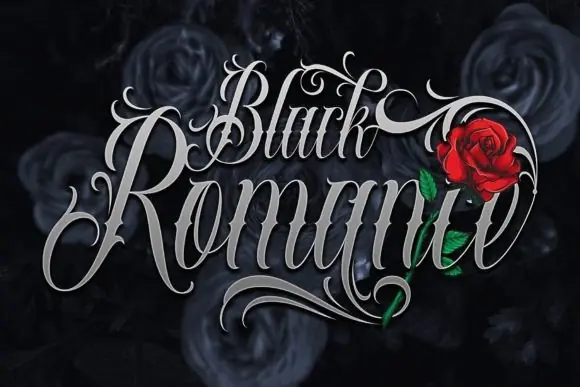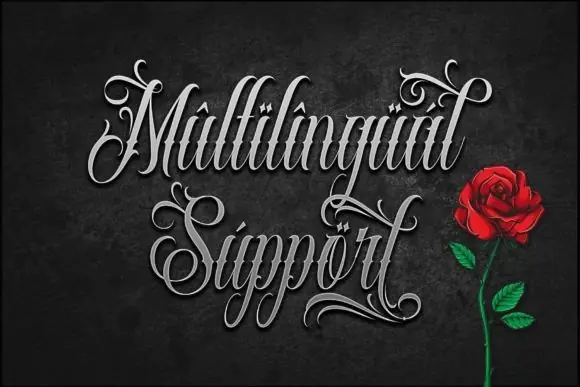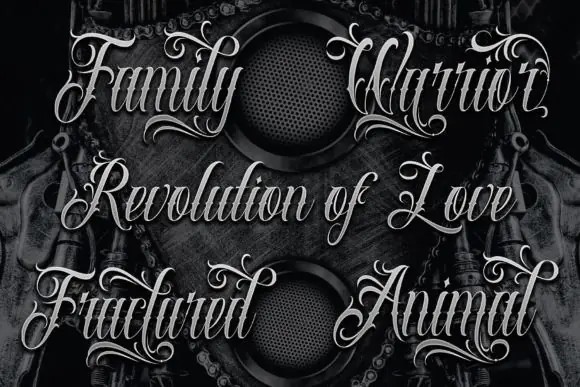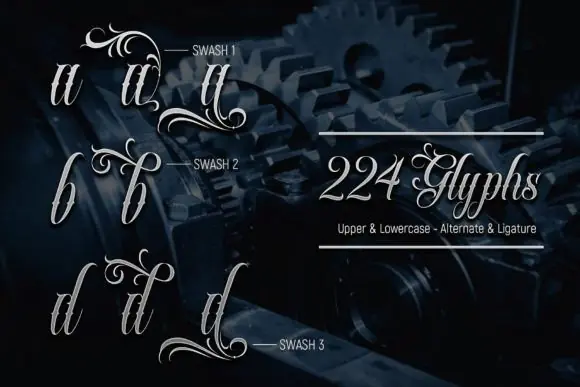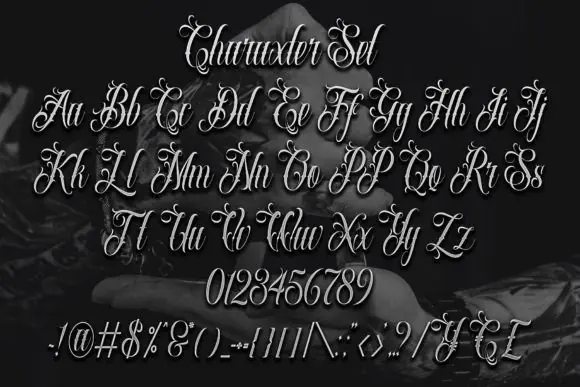
Emilia Luck Font | Contemporary Blackletter Tattoo Font for Logos, T-Shirts, Posters, Flyers, Branding & Bold Gothic Artwork
Create bold, stylish, and professional designs with Emilia Luck Font, a contemporary blackletter tattoo font made for artwork that needs a strong gothic, edgy, and modern tattoo-inspired look.
Emilia Luck Font is perfect for logos, t-shirt designs, posters, flyers, brand identity materials, apparel graphics, hoodie prints, stickers, labels, product packaging, album covers, barbershop branding, motorcycle-themed designs, streetwear artwork, wall art, and social media graphics.
Its contemporary blackletter style gives your typography a powerful visual identity while still feeling clean and suitable for modern branding. Whether you are creating tattoo-style artwork, promotional graphics, clothing designs, or bold business branding, this font helps your designs stand out with confidence and character.
• Tattoo-style designs
• Logos and brand identity
• T-shirt and hoodie designs
• Posters and flyers
• Streetwear apparel
• Stickers and labels
• Product packaging
• Album covers
• Barbershop branding
• Motorcycle-themed graphics
• Printable wall art
• Gothic quote designs
• Bold display typography
• Contemporary blackletter tattoo style
• Bold gothic-inspired appearance
• Great for logos, t-shirts, posters, and flyers
• Perfect for brand identity materials
• Excellent for integrating with artwork
• Suitable for both digital and print projects
• Adds strong, edgy personality to creative designs
Emilia Luck Font is a strong choice for designers, tattoo artists, apparel sellers, and digital product creators who want to create memorable gothic, tattoo, and streetwear-inspired designs with a modern blackletter touch.